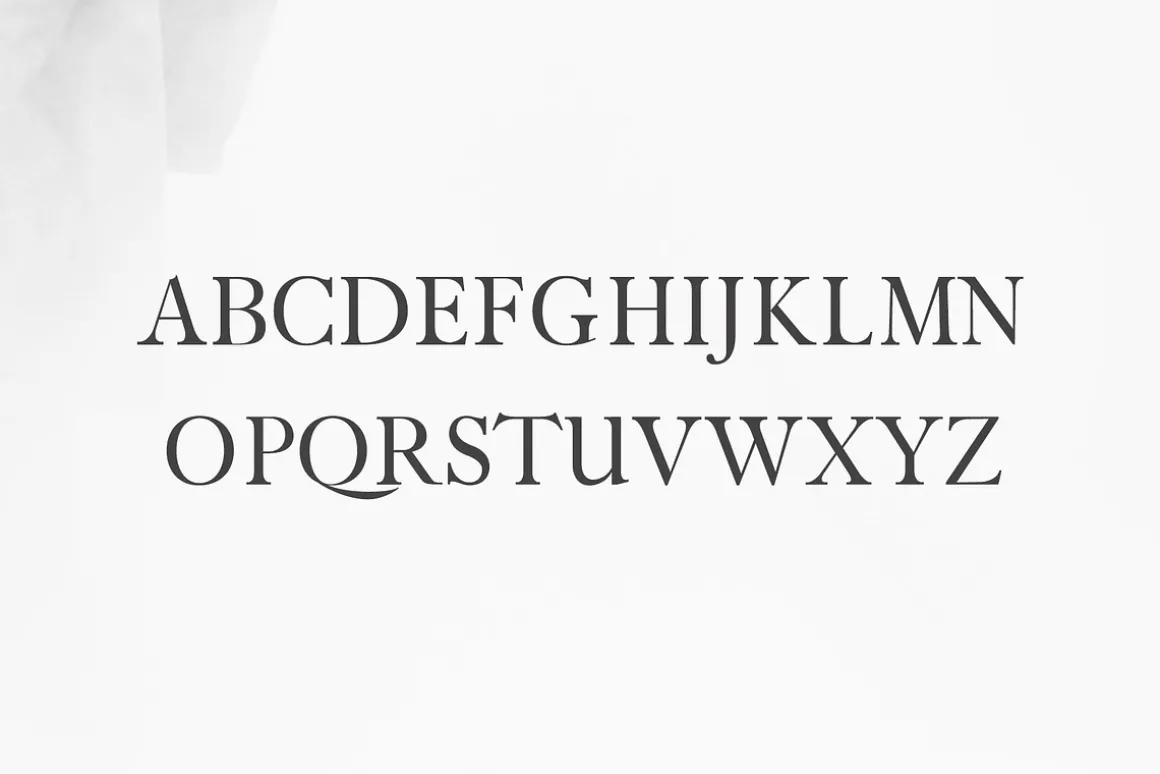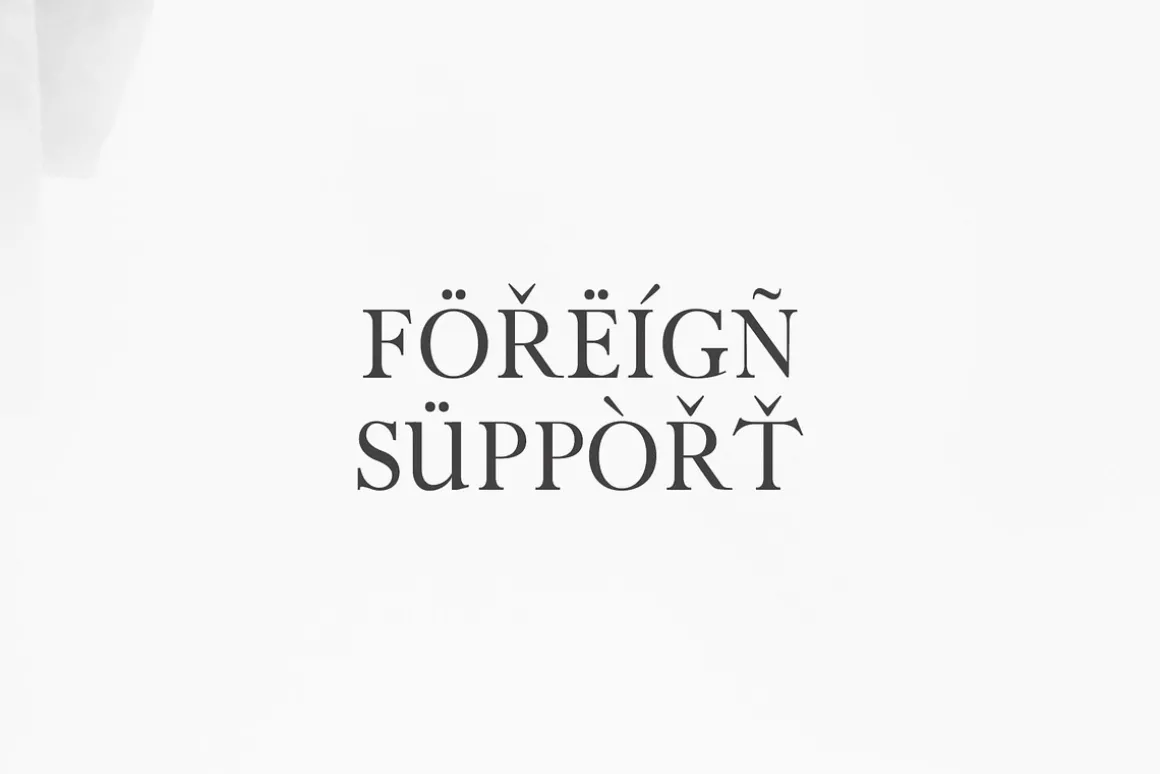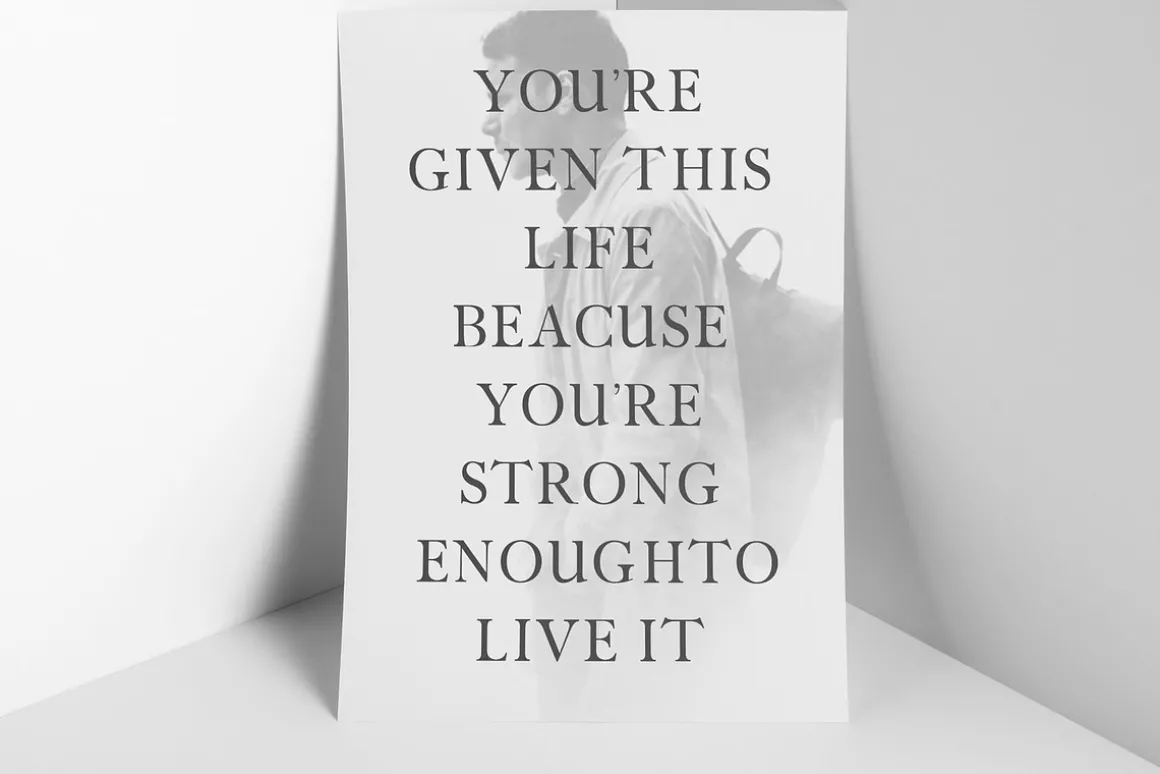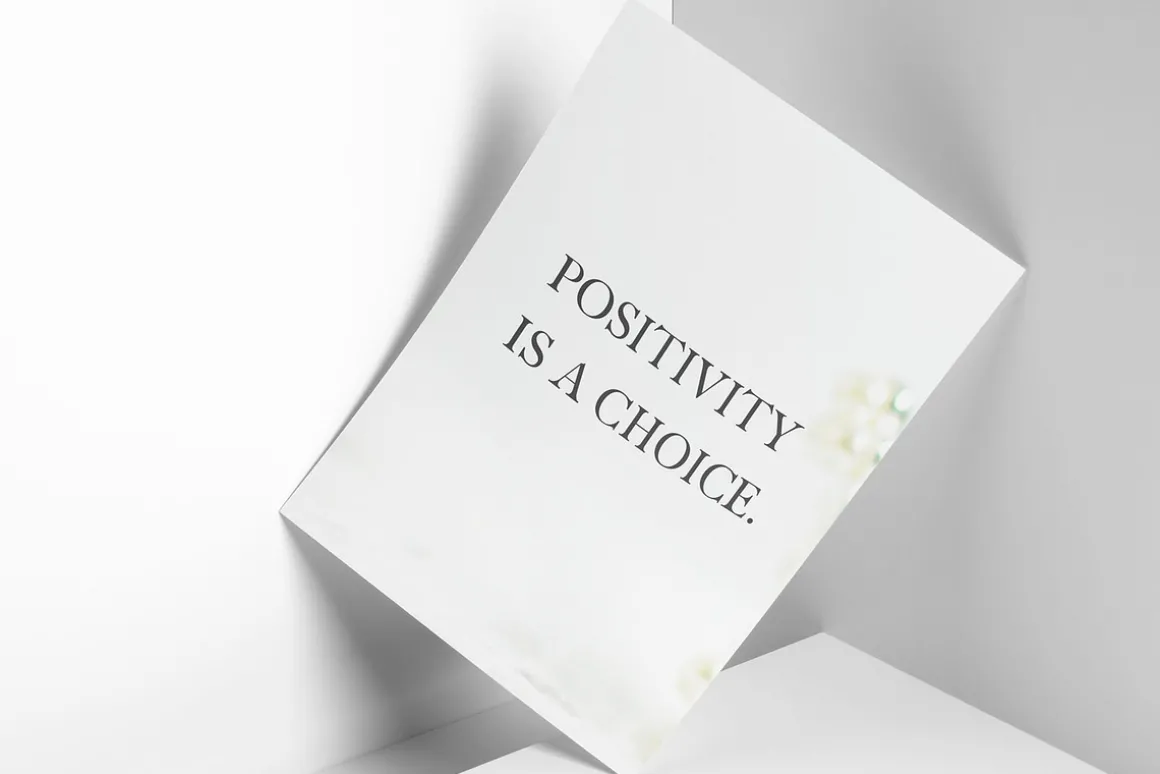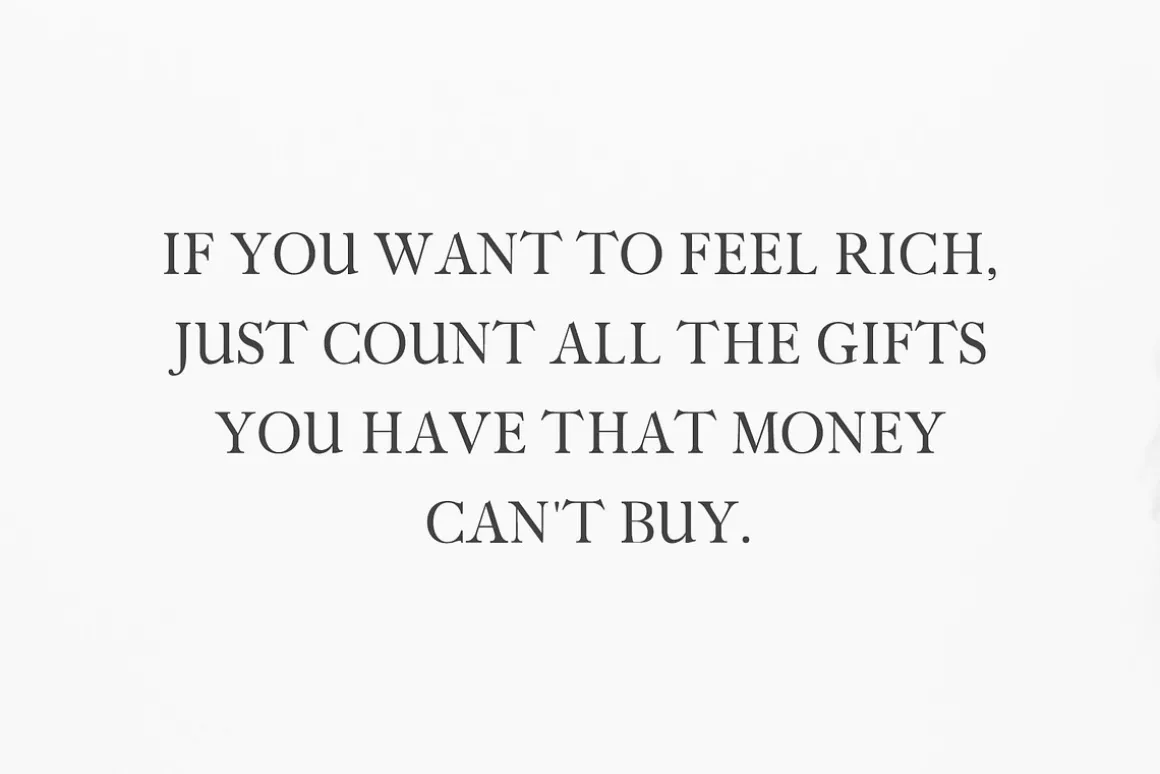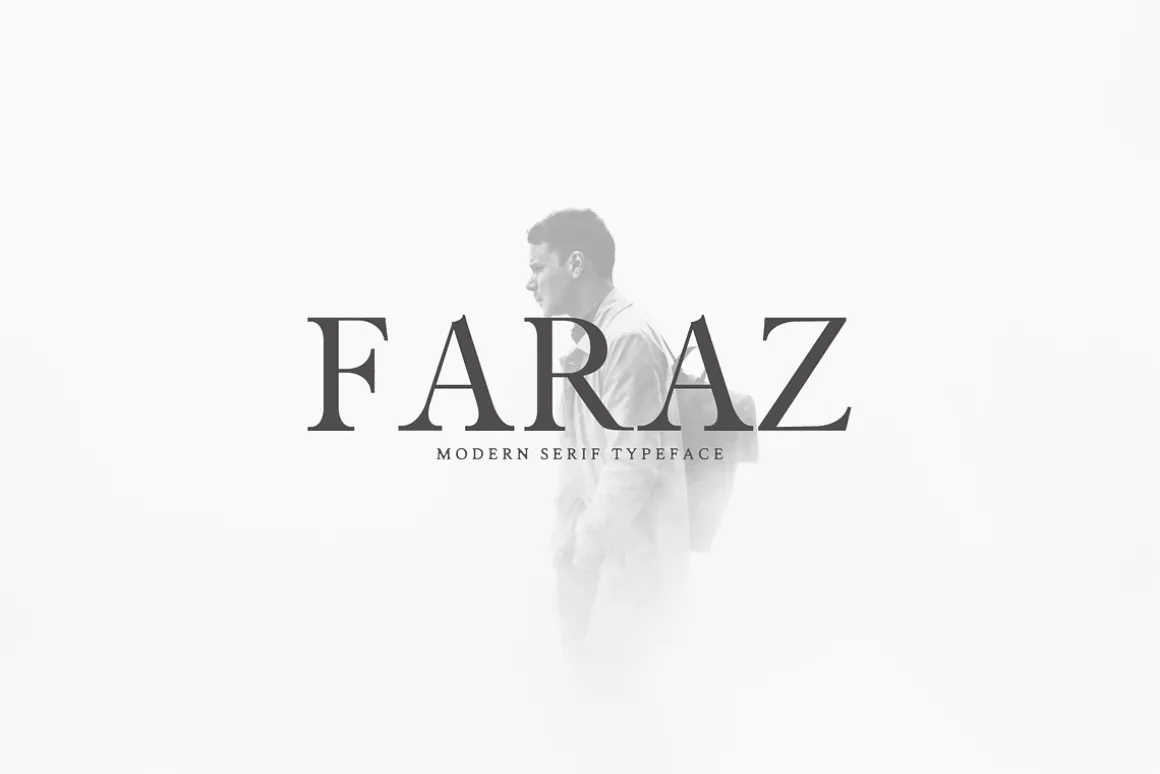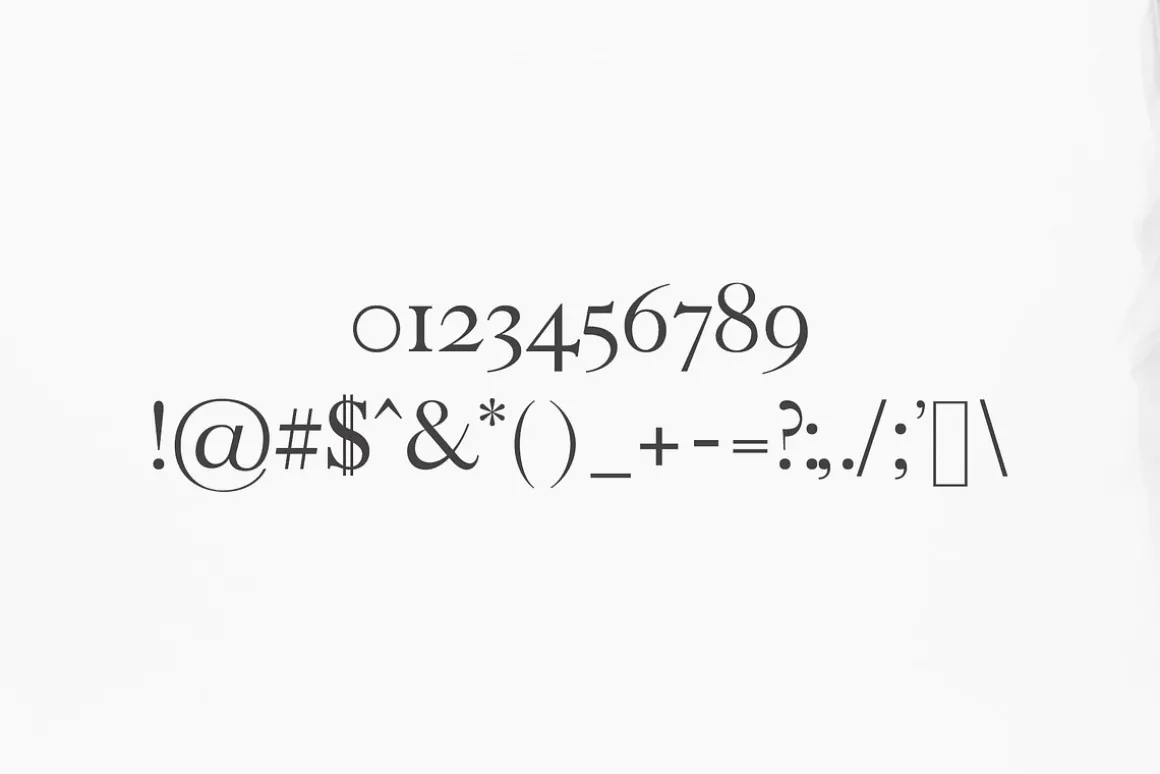
Faraz is an elegant serif font with 3 different weights. It includes all basic glyphs with Non-English characters.
- Font Weight: Regular, Round and Outline
- Uppercase Letters
- Lowercase Letters
- Numbers & Punctuation
- Non English Characters ( Latin Supplement + Latin Extended A)